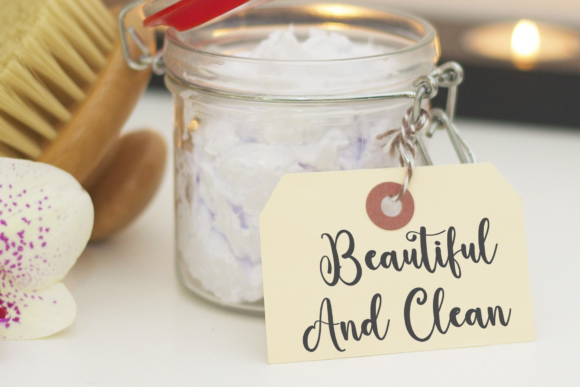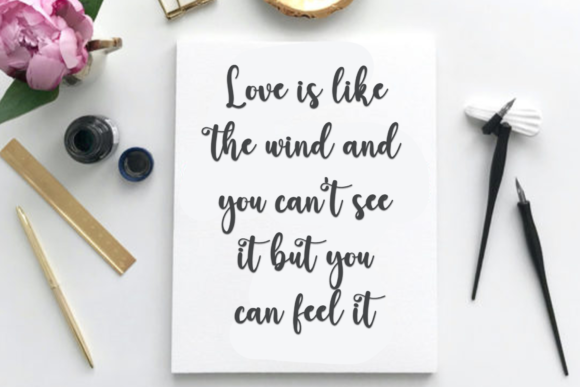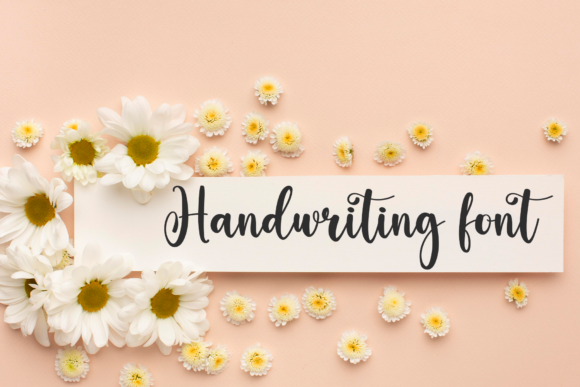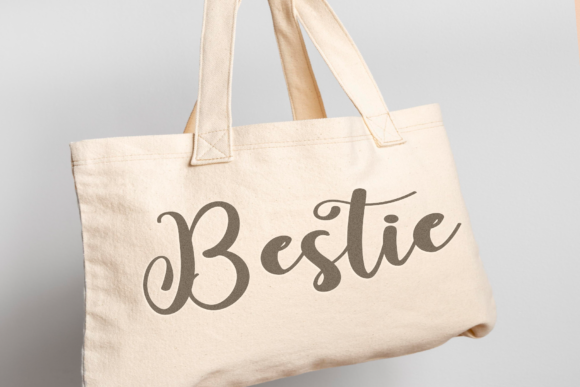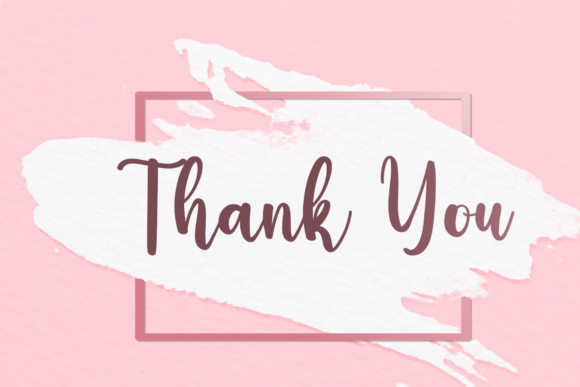
“Boston” emerges as a clean, relaxed, and friendly handwritten font, showcasing a versatile charm with its neat and simple style. Designed to effortlessly adapt to various designs, this font possesses the potential to become your favored go-to choice, proving itself suitable for any occasion with its universal appeal.
The allure of “Boston” lies in its clean and straightforward design, radiating simplicity that seamlessly integrates across diverse applications. The relaxed and friendly nature of the handwritten script adds an approachable touch, making it a suitable companion for an array of design projects.
The simplicity of “Boston” makes it an ideal choice for a wide range of designs, spanning from professional to casual aesthetics. The font’s neat and straightforward style ensures readability and visual clarity, making it adaptable to various contexts such as product packaging, branding projects, social media content, and more.
In the professional sphere, “Boston” brings a refreshing and friendly vibe without sacrificing clarity. Whether employed in corporate communications, presentations, or business collateral, the font maintains a clean and polished appearance, aiding in the effective delivery of information.
For product packaging, “Boston” excels in conveying essential information with a touch of friendliness. The clean lines guarantee that details stand out, while the relaxed and friendly demeanor of the font adds a human touch to the packaging design, making it appealing to a broad audience.
In branding projects, “Boston” stands as a reliable choice, acting as a visual representation of approachability and simplicity. Its friendly handwritten style can communicate a sense of trust and authenticity, facilitating a connection between the brand and its audience.
Within the realm of social media, with its diverse content demands, “Boston” proves to be a versatile companion. Whether applied to captions, quotes, or promotional posts, the font’s relaxed and friendly nature seamlessly adapts to various visual styles, enhancing the overall aesthetic of your social media presence.
During casual and celebratory occasions, such as weddings, “Boston” adds a touch of warmth and friendliness to invitations and related materials. Its clean yet approachable style complements the joyous atmosphere of such events, creating a harmonious visual experience.
In essence, “Boston” transcends the boundaries of a typical font; it evolves into a design ally capable of effortlessly navigating diverse styles and occasions. With its clean, relaxed, and friendly handwritten charm, this font is poised to secure a prominent place in your creative toolkit, offering a reliable and versatile option for a multitude of design endeavors, no matter the occasion!